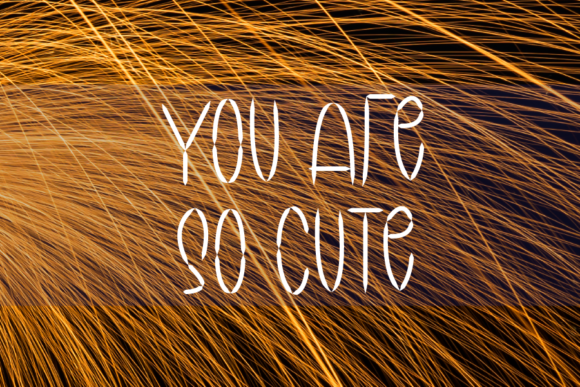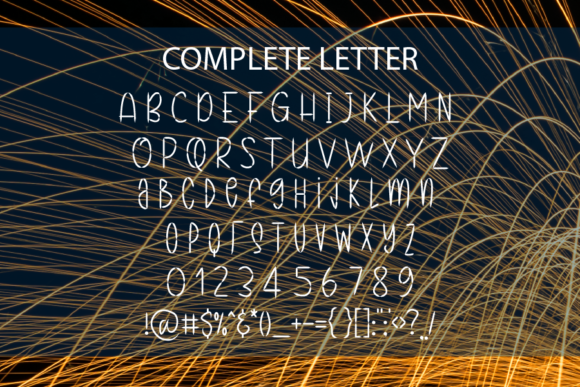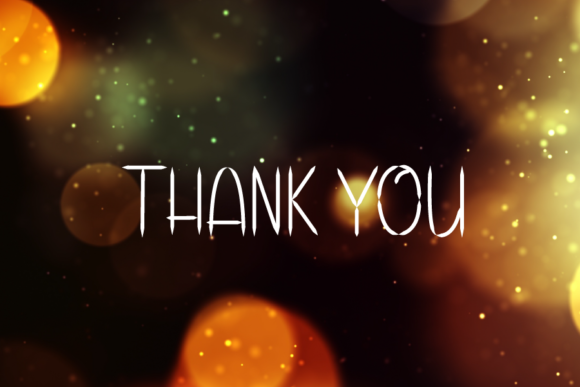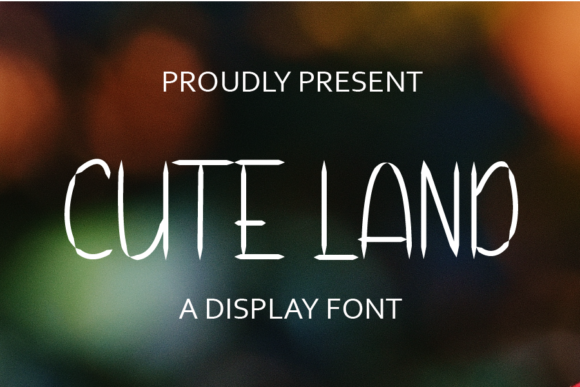
Cute Land Font: The Perfect Addition to Your Creative Projects
Are you a designer, crafter, or DIY enthusiast looking for a unique and playful font to elevate your creative projects? Look no further than Cute Land Font! This simple yet incredibly distinct display font is sure to bring your ideas to life and add a touch of whimsy to your designs.
What is Cute Land Font?
Cute Land Font is a modern display font that is perfect for a variety of creative projects, from crafting and DIY tutorials to social media graphics and marketing materials. Its clean and simple design makes it easy to read and understand, while its unique and playful style adds a touch of personality to any design.
Characteristics of Cute Land Font
So, what makes Cute Land Font so special? Here are just a few of its key characteristics:
- Simple and clean design: Cute Land Font has a straightforward and uncomplicated design that makes it easy to read and use in a variety of contexts.
- Incredibly distinct: Despite its simplicity, Cute Land Font has a unique and distinctive style that sets it apart from other fonts.
- Playful and whimsical: Cute Land Font has a playful and whimsical feel that makes it perfect for creative projects that require a touch of personality.
- Highly versatile: Cute Land Font can be used in a wide range of creative projects, from digital designs to print materials.
How to Use Cute Land Font
So, how can you use Cute Land Font in your creative projects? Here are a few ideas to get you started:
- Crafting and DIY tutorials: Add a touch of personality to your crafting and DIY tutorials with Cute Land Font. Use it to title your tutorials, add headings, or create fun and playful text graphics.
- Social media graphics: Use Cute Land Font to create eye-catching social media graphics that showcase your brand’s personality.
- Marketing materials: Add a touch of whimsy to your marketing materials, such as brochures, flyers, and business cards, with Cute Land Font.
- Digital designs: Use Cute Land Font in your digital designs, such as website headers, email newsletters, and digital invitations.
Benefits of Using Cute Land Font
So, why should you choose Cute Land Font for your creative projects? Here are just a few benefits of using this unique and playful font:
- Adds personality to your designs: Cute Land Font adds a touch of personality to your designs, making them more engaging and memorable.
- Easy to read and understand: Despite its playful style, Cute Land Font is easy to read and understand, making it perfect for a wide range of creative projects.
- Highly versatile: Cute Land Font can be used in a wide range of creative projects, from digital designs to print materials.
In conclusion, Cute Land Font is a simple yet incredibly distinct display font that is perfect for a wide range of creative projects. Its playful and whimsical style adds a touch of personality to any design, making it more engaging and memorable. Whether you’re a designer, crafter, or DIY enthusiast, Cute Land Font is a great addition to your creative toolkit. So why not give it a try and see how it can bring your ideas to life?